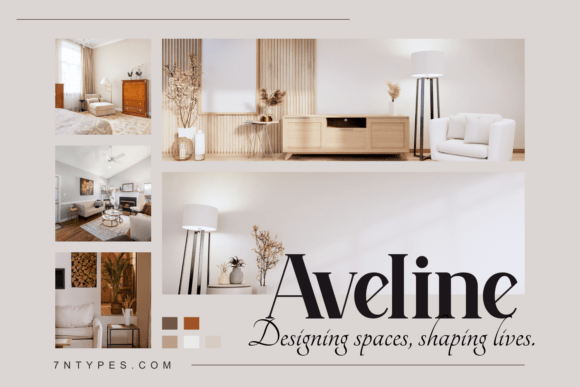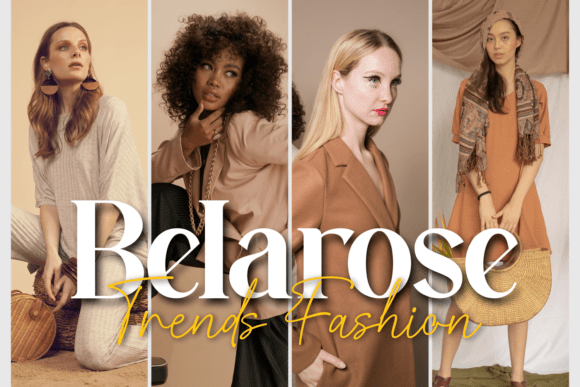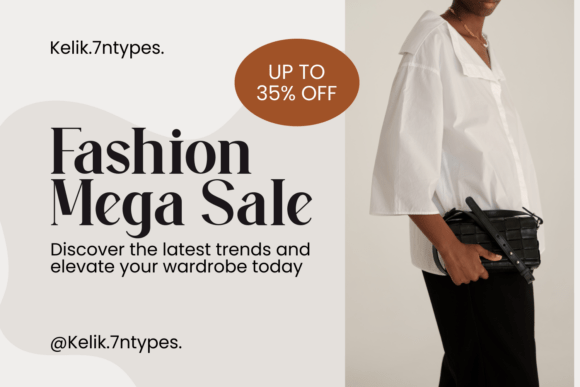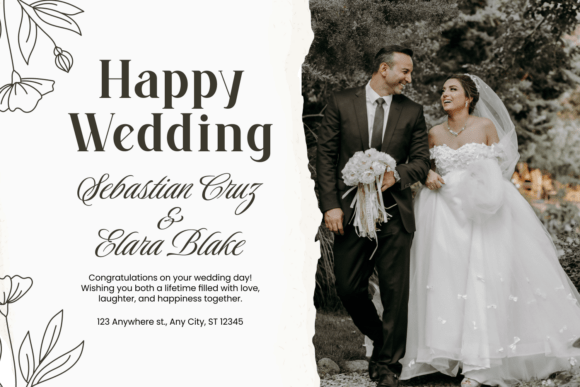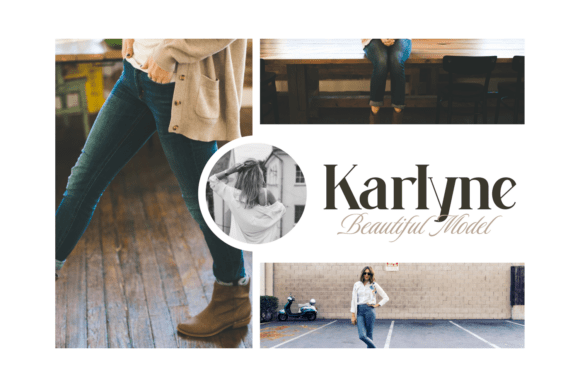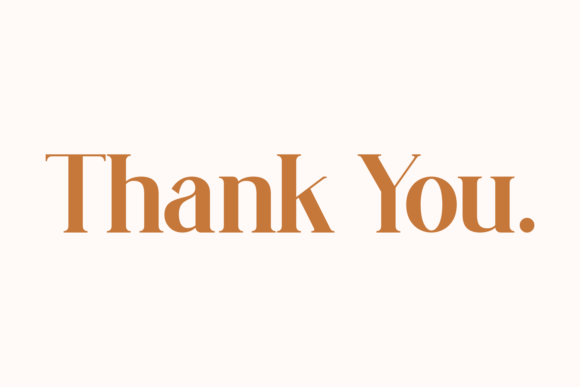
Introduction to Qestalie Font Font
Fonts play a crucial role in design, and the Qestalie Font font is a typeface that brings both character and versatility to any project. Whether you’re working on a branding project, a website, or a print design, the Qestalie Font font offers a unique style that can elevate your work.
Qestalie is an elegant serif font with luxurious curves and dramatic swashes, designed to add sophistication to any project.
With its blend of classic charm and stylish details, Qestalie is ideal for branding, high-end packaging, editorial layouts, wedding designs, and more Its refined flair makes it a standout in both print and digital design.
The Qestalie Font font is more than just a typeface – it’s a design tool that helps you communicate your message with style and clarity. Its unique character set and versatile design make it suitable for a wide range of applications, from elegant invitations to bold headlines.
With its carefully crafted letterforms and balanced proportions, the Qestalie Font font ensures readability and visual appeal across all mediums.
The Qestalie Font font stands out with its unique design, exceptional readability, and versatility across various design applications.